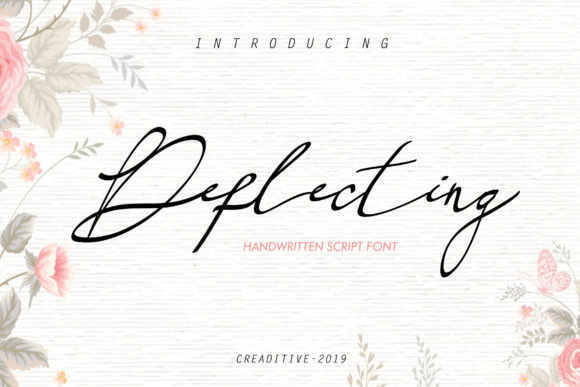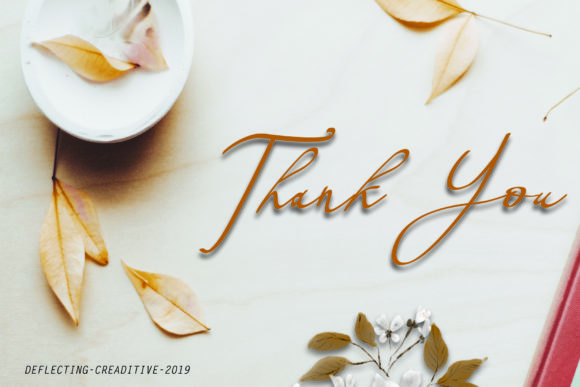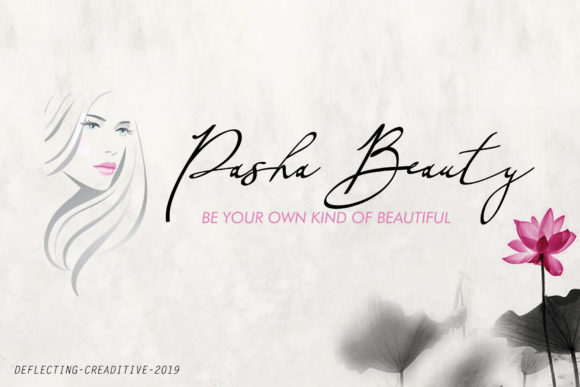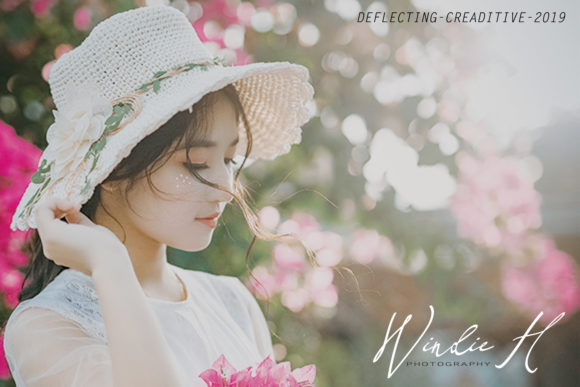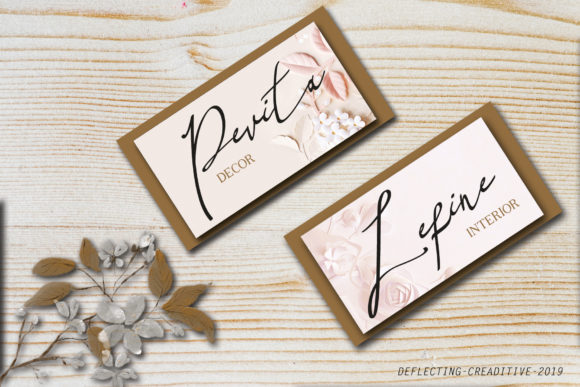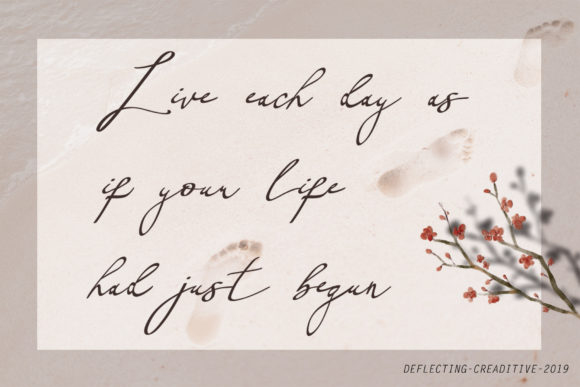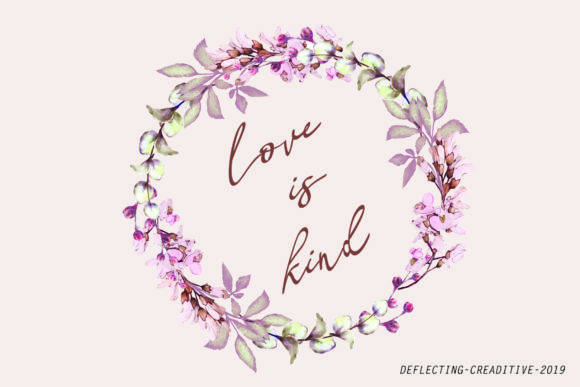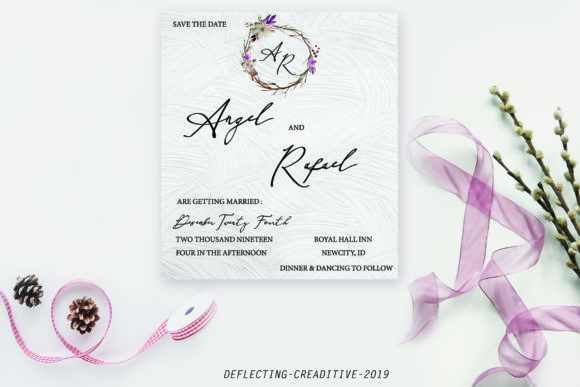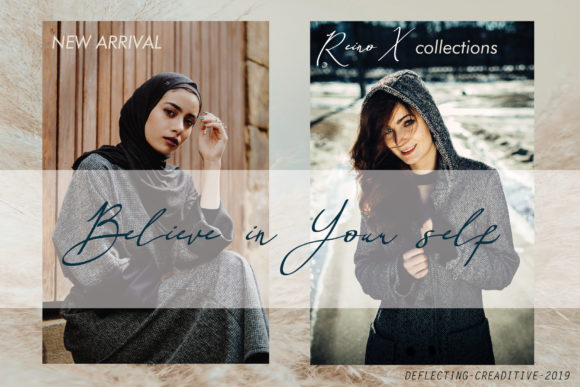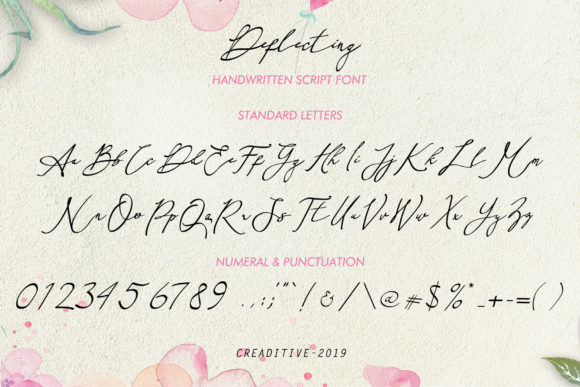
Deflecting Font
About Deflecting Font
The Deflecting is a fashionable and quirky new handwriting font with a sexy and stylish touch. It was created to look as close to a natural handwritten script as possible.